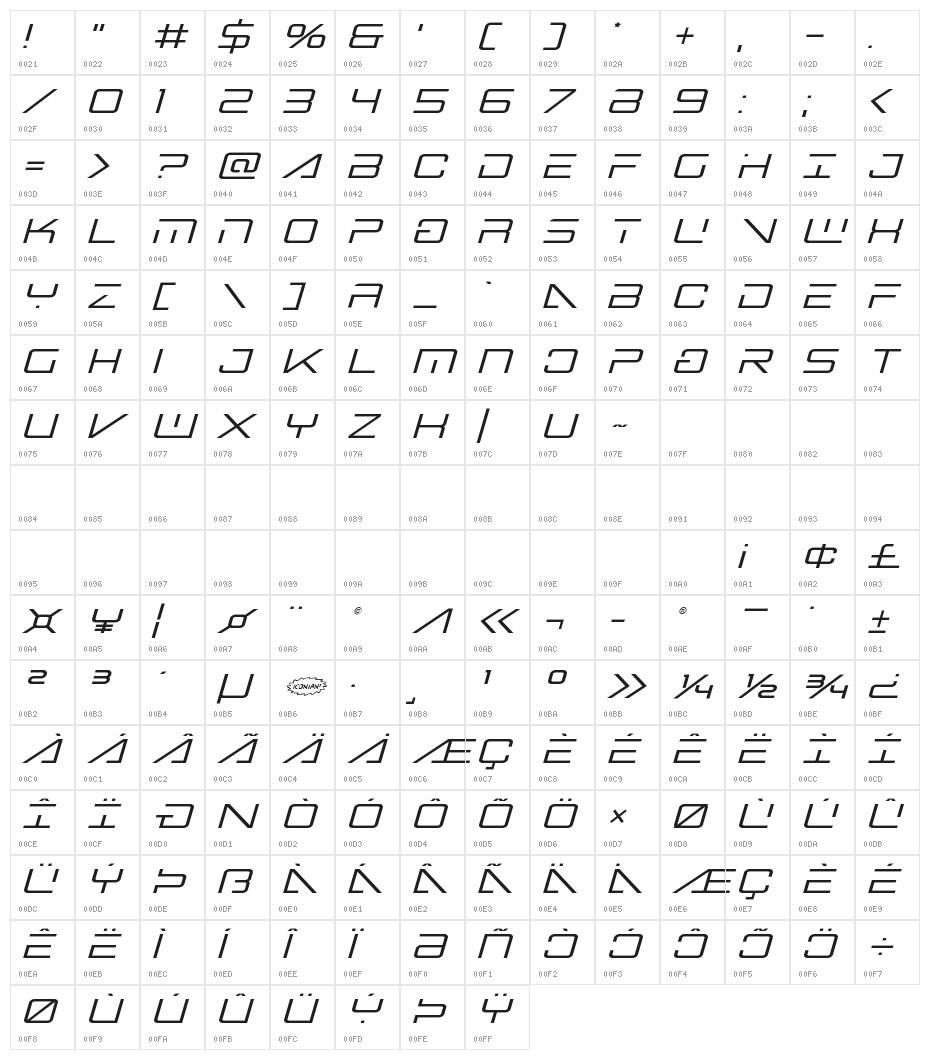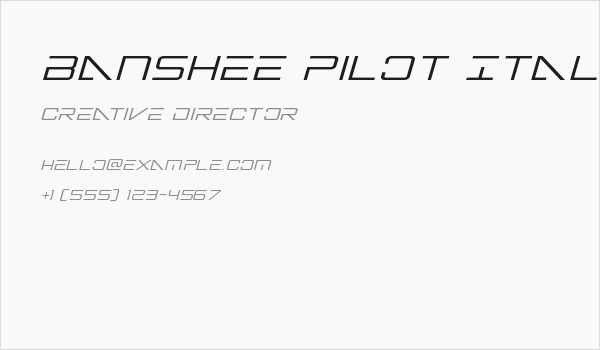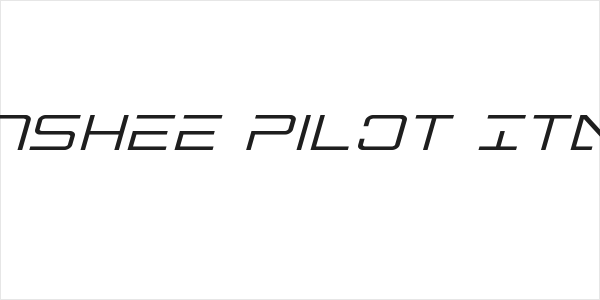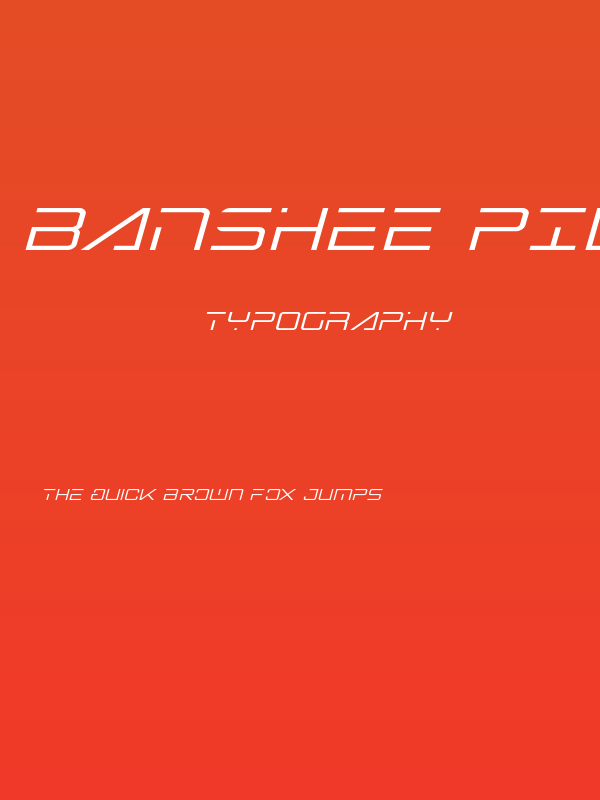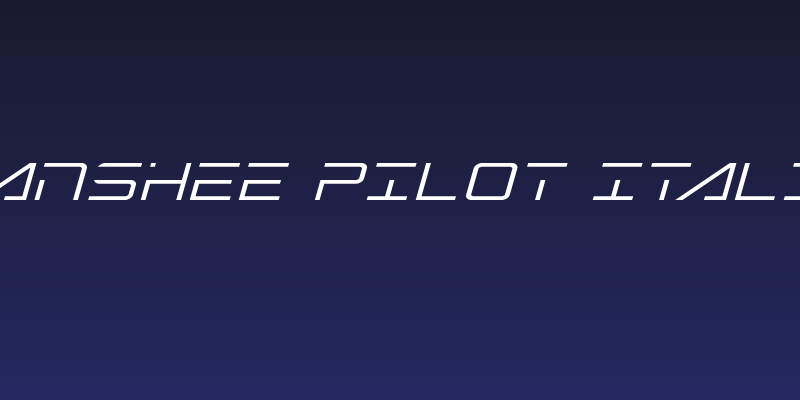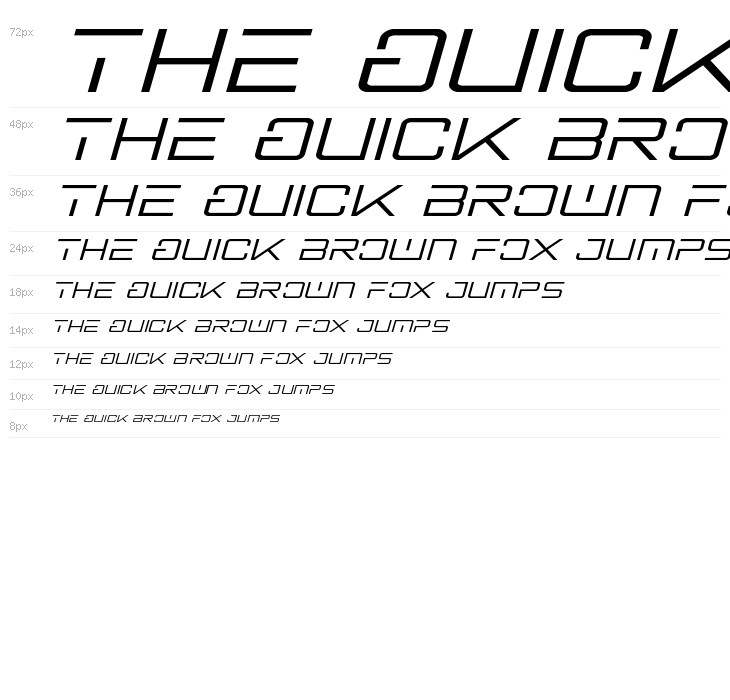
Banshee Pilot Italic Font
Banshee Pilot Italic Description
This font features a sleek, futuristic design with sharp angles and a streamlined appearance. The characters are slightly italicized, giving a sense of motion and speed. The uppercase and lowercase letters maintain a consistent style, with a geometric and technical feel. The numbers and special characters are designed to match the overall aesthetic, making it suitable for modern and tech-oriented projects. The font's clean lines and precise curves create a dynamic and engaging visual experience.
| Use Case | Logos, Headlines, Digital Interfaces |
| Proposed Projects | Ideal for technology branding, sci-fi themed designs, automotive industry materials, and modern digital interfaces. |